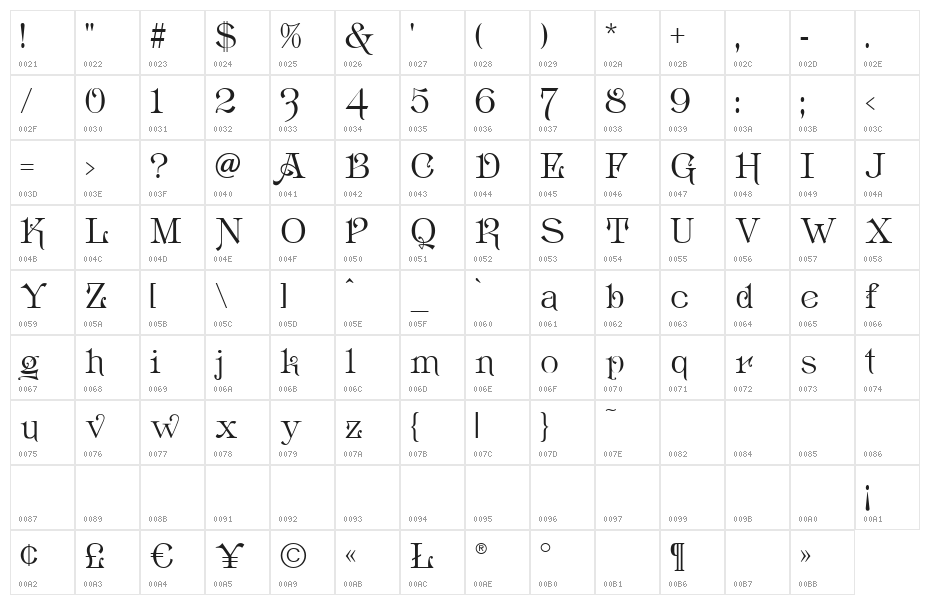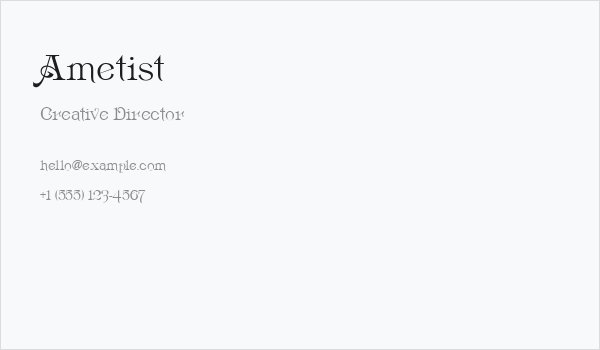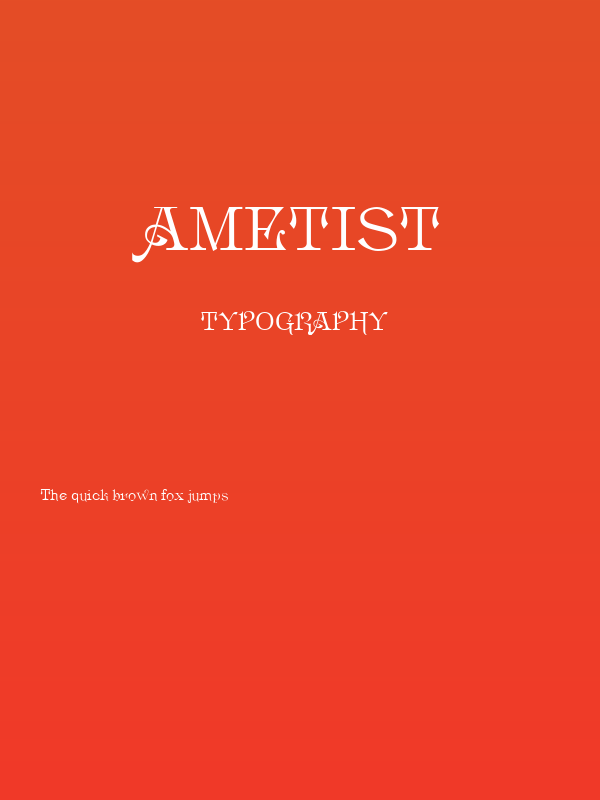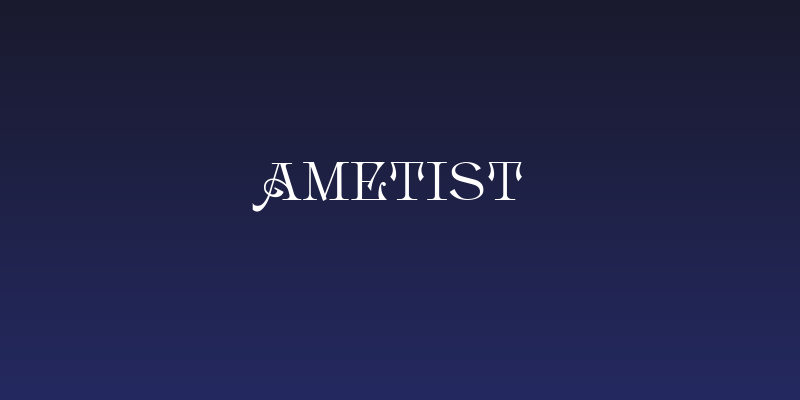
Ametist Font
Ametist Description
This font features a unique blend of classic and modern elements, characterized by its elegant and decorative serifs. The uppercase letters exhibit a distinct flair with exaggerated curves and sharp angles, while the lowercase letters maintain a more subdued yet stylish appearance. The numerals are bold and prominent, matching the overall aesthetic of the font. Special characters are intricately designed, adding to the font's decorative appeal. The font's high contrast in stroke thickness enhances its readability and visual impact, making it suitable for a variety of creative applications.
| Proposed Projects | Ideal for use in branding, invitations, posters, and editorial design where a touch of elegance and sophistication is desired. |